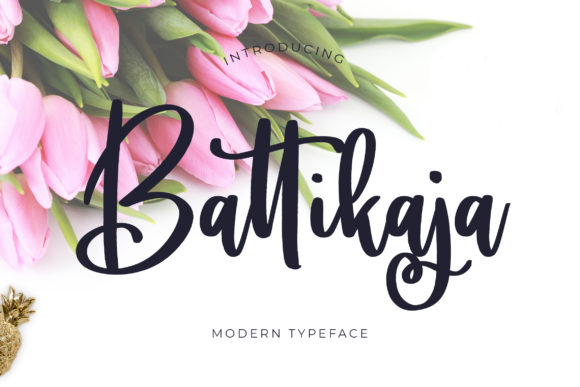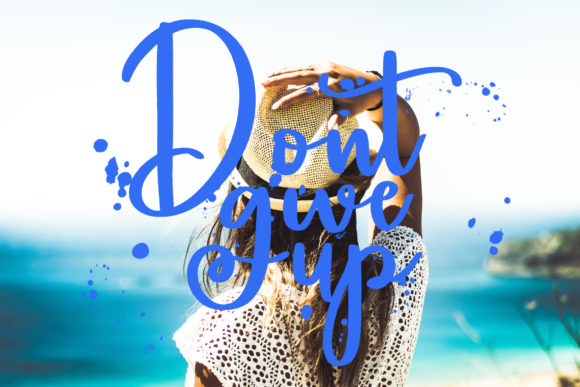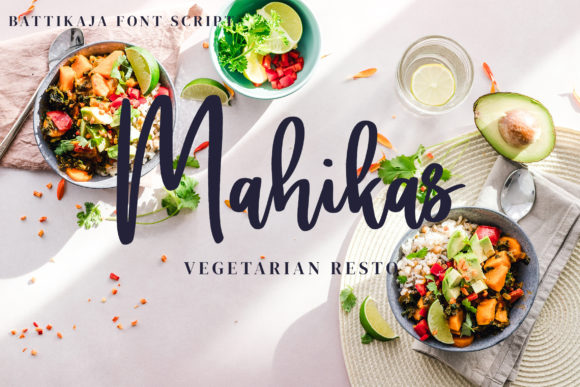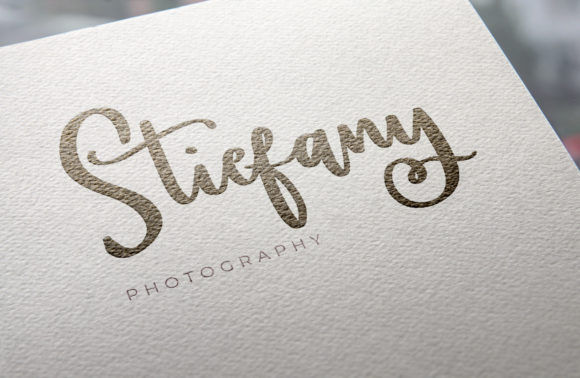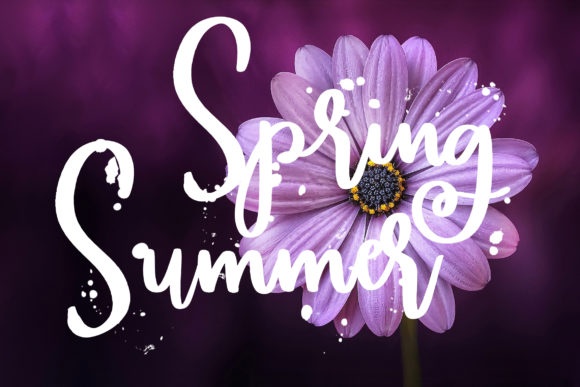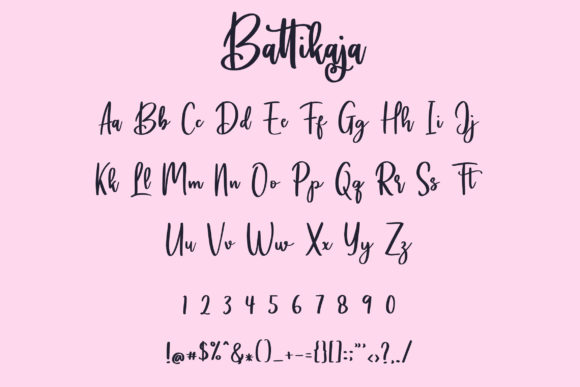
Battikaja Font
Battikaja is an equally elegant and authentic script. This gorgeous calligraphy font will add a fancy and playful feel to your next arts & crafts project.